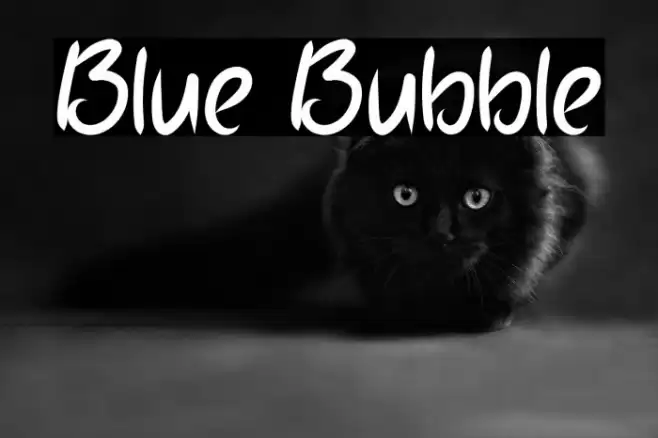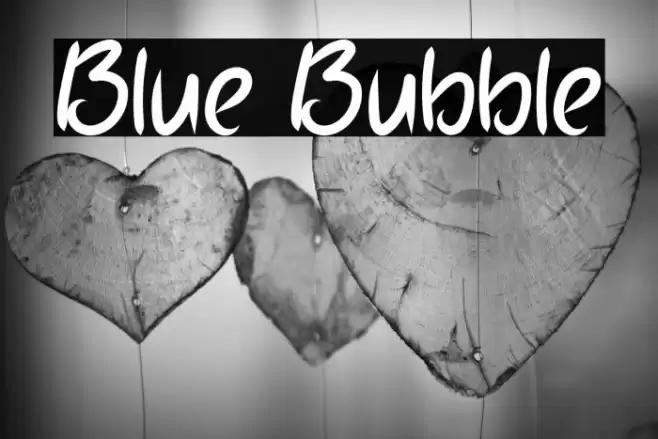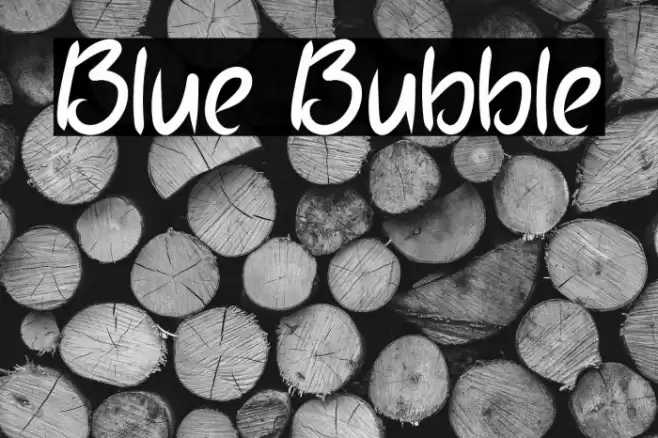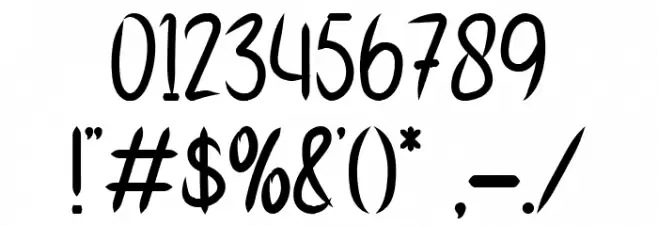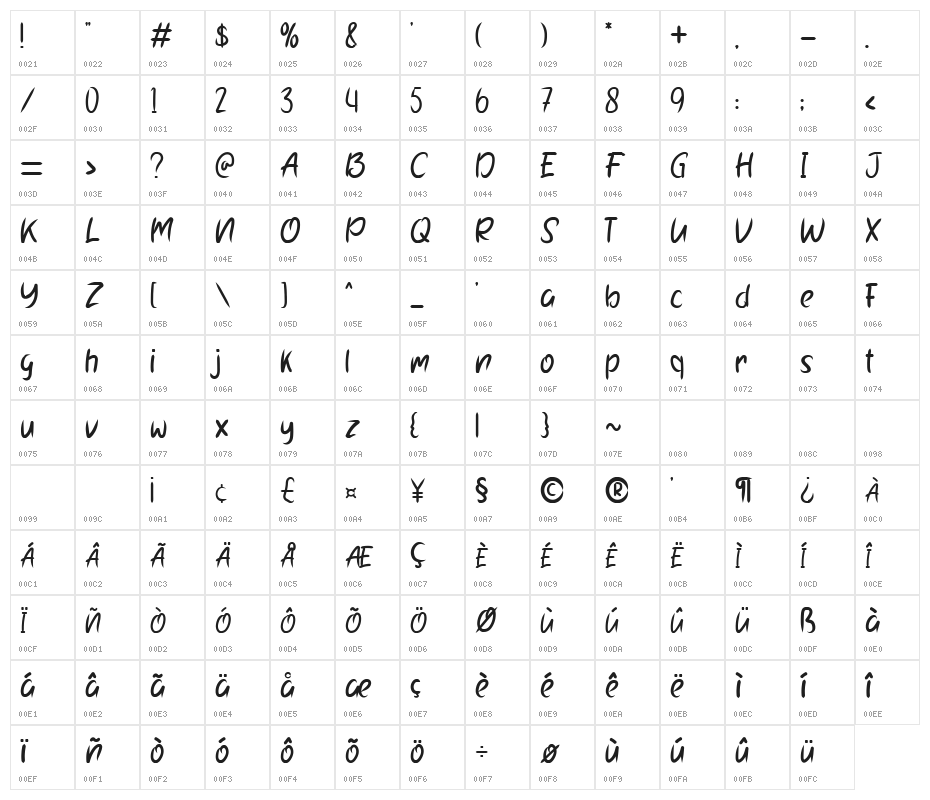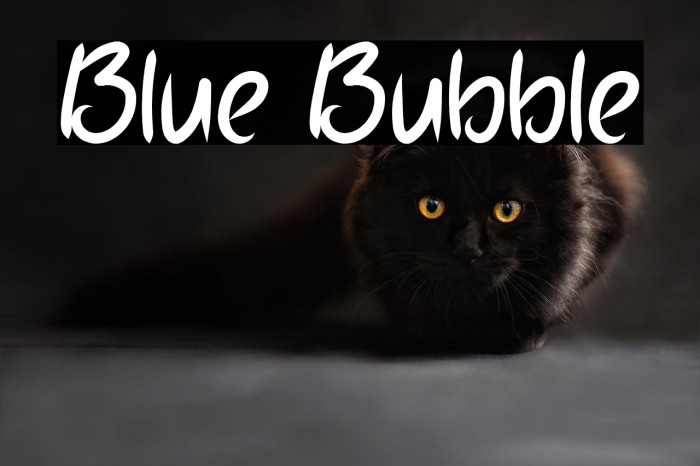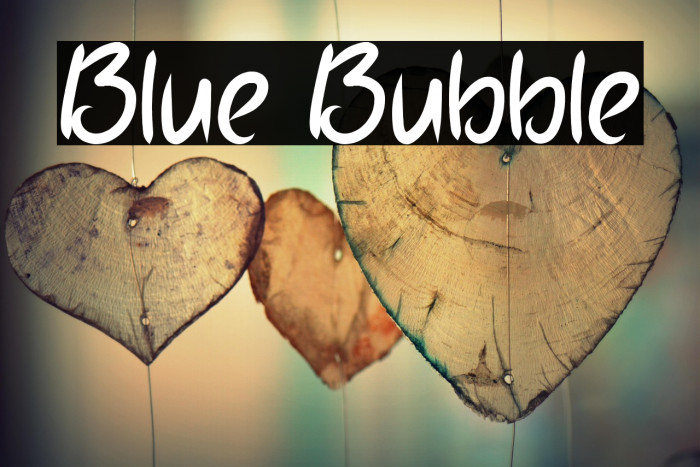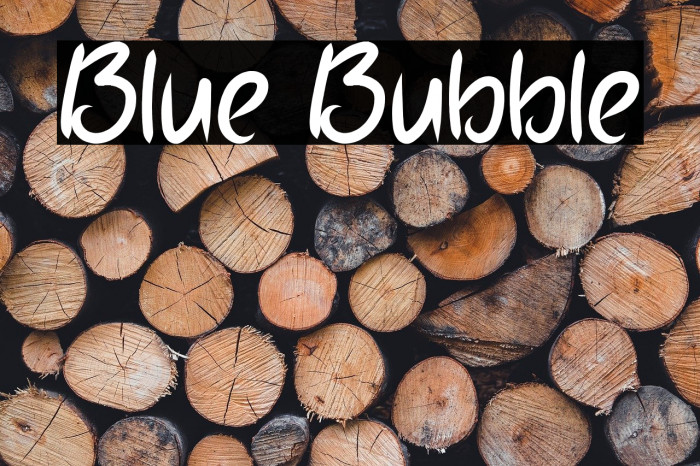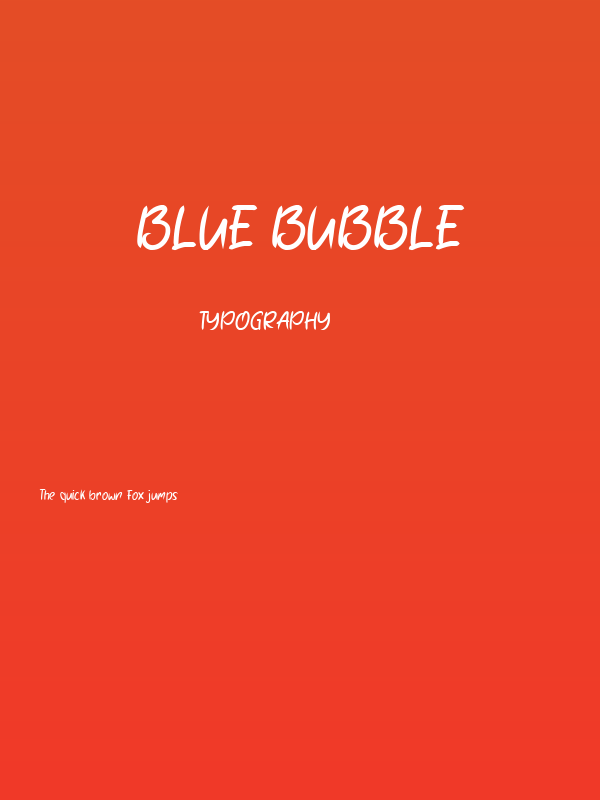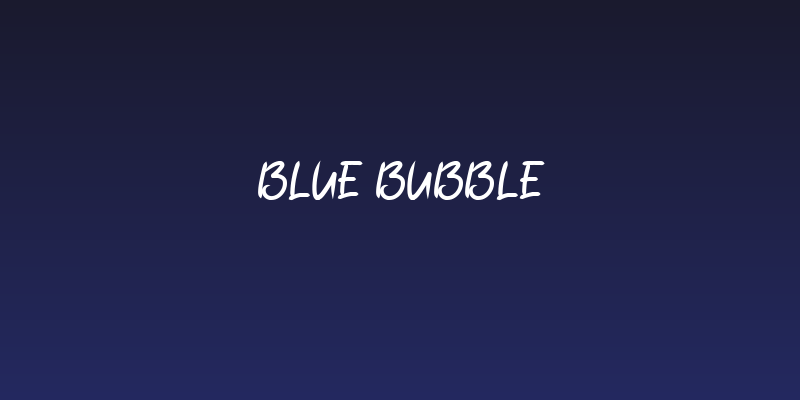
This font features a playful and energetic style with a handwritten appearance. The characters are slightly slanted, giving a dynamic and informal feel. The strokes are bold and rounded, with a consistent thickness that adds to its legibility. The uppercase and lowercase letters maintain a cohesive look, while the numerals and special characters complement the overall design. This font exudes a friendly and approachable vibe, making it suitable for casual and creative projects.
A playful, handwritten font with bold, rounded strokes and a dynamic slant from Regular fonts.
- Proposed Projects: Ideal for children's books, greeting cards, playful branding, and social media graphics.
- Overall Style: Playful
- Use Case: Headlines, Logos, Informal text